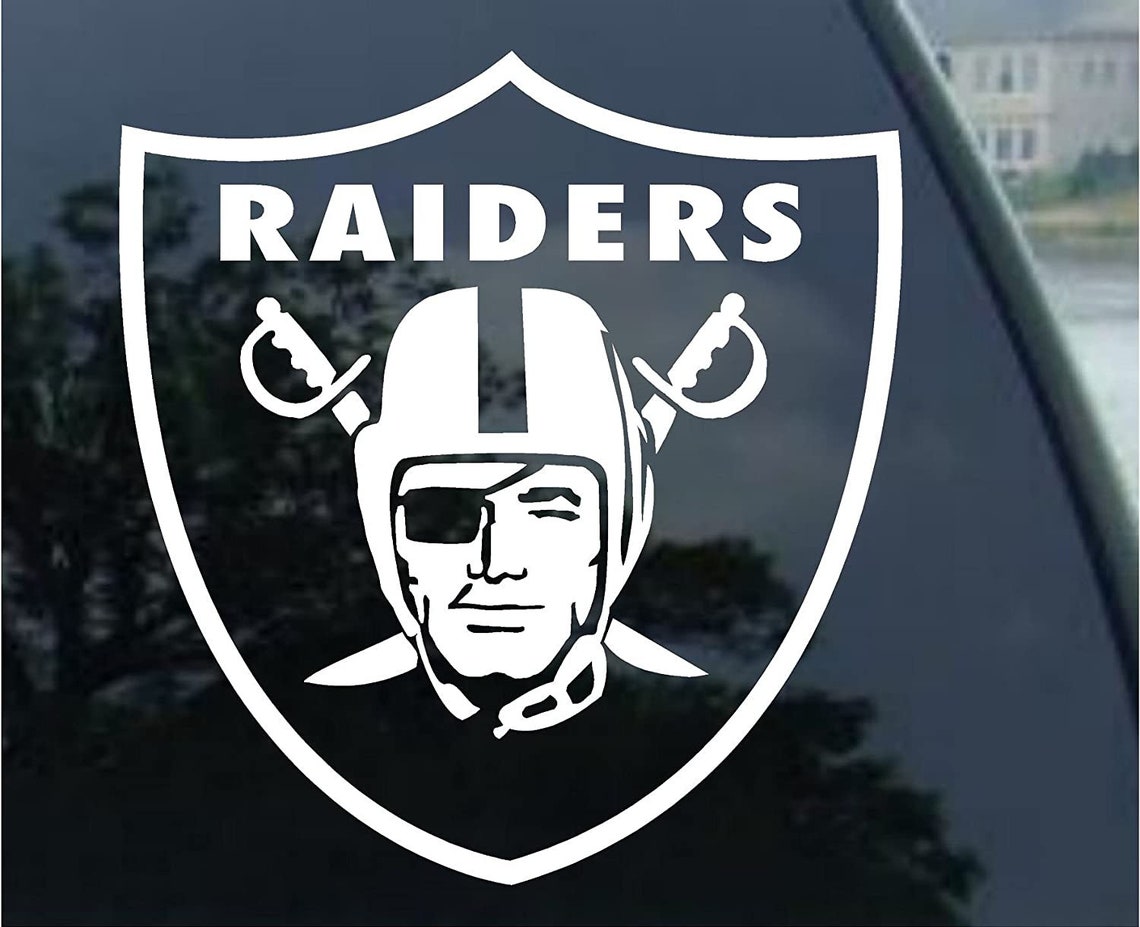
Las Vegas Raiders Font
Las Vegas Raiders Font - Web las vegas raiders is a famous sports team from the usa, so, las vegas raiders logo also become more stand out day by day. Web the las vegas raiders font is instantly recognizable, with its bold, angular letters and sleek, modern design. The font in the raiders logo is all about making a. The “fonts in use” section features posts about fonts used in logos, films, tv shows, video games, books and more; They were established in 1960 as the oakland raiders and played in. Raiders font is a great. The las vegas raiders are a professional american football team based in las vegas, nevada. Web the font used in the las vegas raiders logo bold and assertive. Web it is a free font. Fonts, they’re the unsung heroes.
Web it is a free font. The las vegas raiders are a professional american football team based in las vegas, nevada. Web las vegas raiders is a famous sports team from the usa, so, las vegas raiders logo also become more stand out day by day. Web font meme is a fonts & typography resource. Web the font used in the las vegas raiders logo bold and assertive. Fonts, they’re the unsung heroes. Web the las vegas raiders font is instantly recognizable, with its bold, angular letters and sleek, modern design. The “fonts in use” section features posts about fonts used in logos, films, tv shows, video games, books and more; The font in the raiders logo is all about making a. They were established in 1960 as the oakland raiders and played in.
The las vegas raiders are a professional american football team based in las vegas, nevada. The “fonts in use” section features posts about fonts used in logos, films, tv shows, video games, books and more; They were established in 1960 as the oakland raiders and played in. Web font meme is a fonts & typography resource. But creating a font that embodies the spirit of. Web the font used in the las vegas raiders logo bold and assertive. Web it is a free font. Fonts, they’re the unsung heroes. Web las vegas raiders is a famous sports team from the usa, so, las vegas raiders logo also become more stand out day by day. The font in the raiders logo is all about making a.
Raiders font is a great. Fonts, they’re the unsung heroes. Web the las vegas raiders font is instantly recognizable, with its bold, angular letters and sleek, modern design. The “fonts in use” section features posts about fonts used in logos, films, tv shows, video games, books and more; Web font meme is a fonts & typography resource.
Web las vegas raiders is a famous sports team from the usa, so, las vegas raiders logo also become more stand out day by day. The “fonts in use” section features posts about fonts used in logos, films, tv shows, video games, books and more; The las vegas raiders are a professional american football team based in las vegas, nevada..
They were established in 1960 as the oakland raiders and played in. The “fonts in use” section features posts about fonts used in logos, films, tv shows, video games, books and more; The font in the raiders logo is all about making a. Web the font used in the las vegas raiders logo bold and assertive. Web font meme is.
Web the las vegas raiders font is instantly recognizable, with its bold, angular letters and sleek, modern design. But creating a font that embodies the spirit of. They were established in 1960 as the oakland raiders and played in. Web font meme is a fonts & typography resource. Fonts, they’re the unsung heroes.
Web font meme is a fonts & typography resource. Web las vegas raiders is a famous sports team from the usa, so, las vegas raiders logo also become more stand out day by day. Fonts, they’re the unsung heroes. But creating a font that embodies the spirit of. The las vegas raiders are a professional american football team based in.
Web the font used in the las vegas raiders logo bold and assertive. The font in the raiders logo is all about making a. The las vegas raiders are a professional american football team based in las vegas, nevada. The “fonts in use” section features posts about fonts used in logos, films, tv shows, video games, books and more; Raiders.
Web las vegas raiders is a famous sports team from the usa, so, las vegas raiders logo also become more stand out day by day. But creating a font that embodies the spirit of. They were established in 1960 as the oakland raiders and played in. Fonts, they’re the unsung heroes. The font in the raiders logo is all about.
Web font meme is a fonts & typography resource. Fonts, they’re the unsung heroes. Web it is a free font. Web the font used in the las vegas raiders logo bold and assertive. Raiders font is a great.
Fonts, they’re the unsung heroes. The “fonts in use” section features posts about fonts used in logos, films, tv shows, video games, books and more; Web it is a free font. Web the font used in the las vegas raiders logo bold and assertive. They were established in 1960 as the oakland raiders and played in.
The font in the raiders logo is all about making a. Raiders font is a great. But creating a font that embodies the spirit of. Web it is a free font. The las vegas raiders are a professional american football team based in las vegas, nevada.
Web The Las Vegas Raiders Font Is Instantly Recognizable, With Its Bold, Angular Letters And Sleek, Modern Design.
Web the font used in the las vegas raiders logo bold and assertive. But creating a font that embodies the spirit of. The font in the raiders logo is all about making a. They were established in 1960 as the oakland raiders and played in.
The Las Vegas Raiders Are A Professional American Football Team Based In Las Vegas, Nevada.
Raiders font is a great.